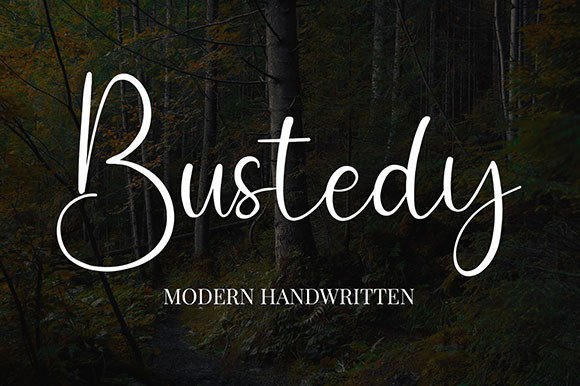
Journey into the realm of typography with Bustedy Font - a charming and distinctive script font that captivates hearts with its elegantly flowing strokes and enchanting curves. Born from the creative minds of Chatype Studio, Bustedy Font stands as a testament to the beauty and power of handwritten artistry.
Immerse yourself in a world of endless possibilities as you explore the depths of Bustedy Font's versatility. Its casual and neat demeanor make it a perfect companion for a wide range of creative endeavors, from crafting heartfelt greeting cards to designing eye-catching digital presentations. Whether you're a seasoned designer or just starting your creative journey, Bustedy Font is a font that will elevate your designs to new heights.
Picture this - a stunning t-shirt design that speaks volumes about your unique style. With Bustedy Font, your designs will exude a touch of elegance and personality that sets them apart from the ordinary. Let the graceful lines of Bustedy Font dance across your creations, leaving a lasting impression on anyone who lays eyes upon them.